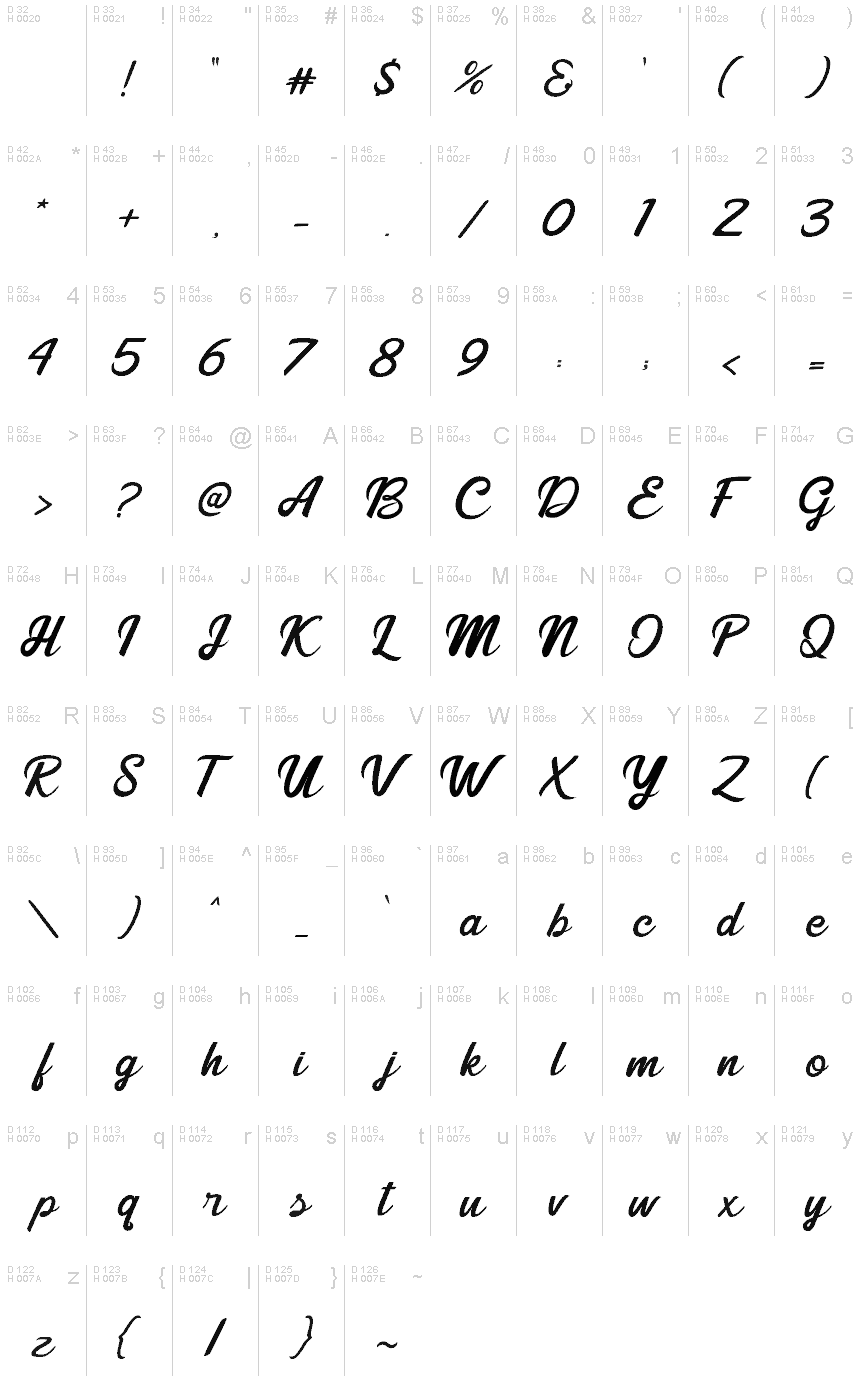
Shining Times
Introducing: Shining Times, a Bold Script Font. Shining Times is a modern handmade font, dynamic, and also has beautiful OpenType features. Shining Times is easy to use for your work; Branding, Logo Design, Lettering, Clothing, Poster, and others.